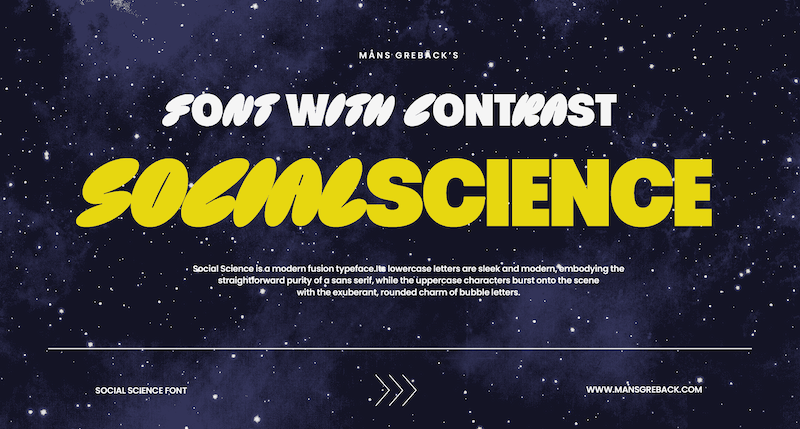
Font name: | Social Science |
NOTE: This font is for PERSONAL USE ONLY! To purchase a commercial license, visit: http://mn.sg/social-science Social Science is a modern fusion typeface. The graffiti-inspired bubbles bring a sense of urban cool to the design, while the straight and confident sans stands for the stability of your branding. For questions, please visit www.mansgreback.com/faq |